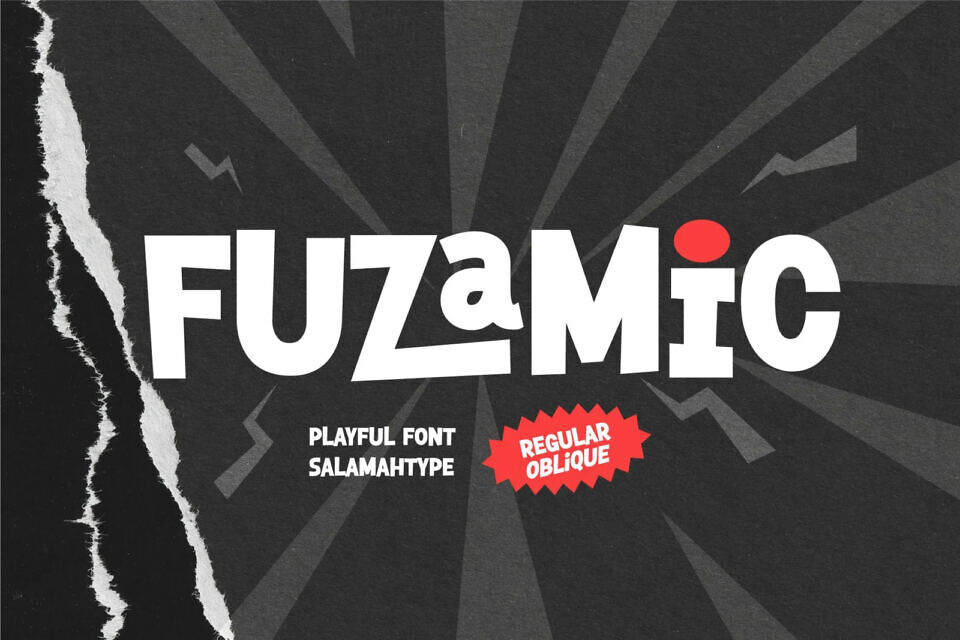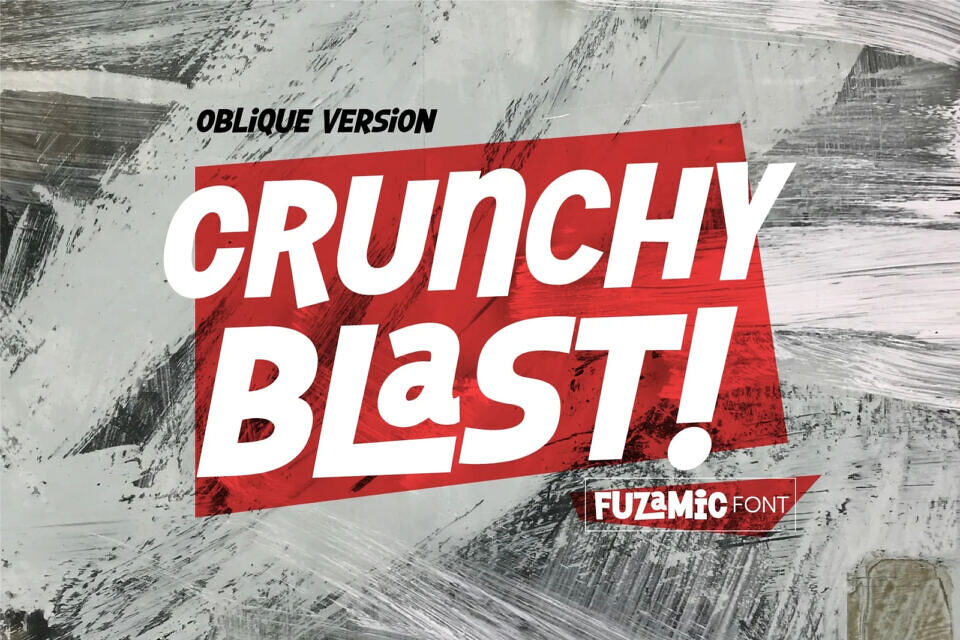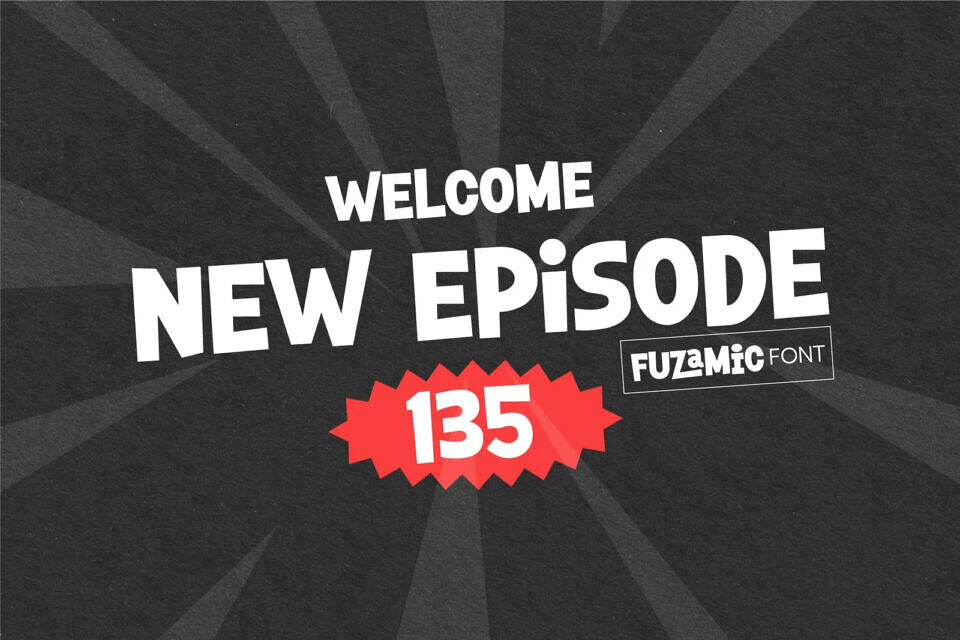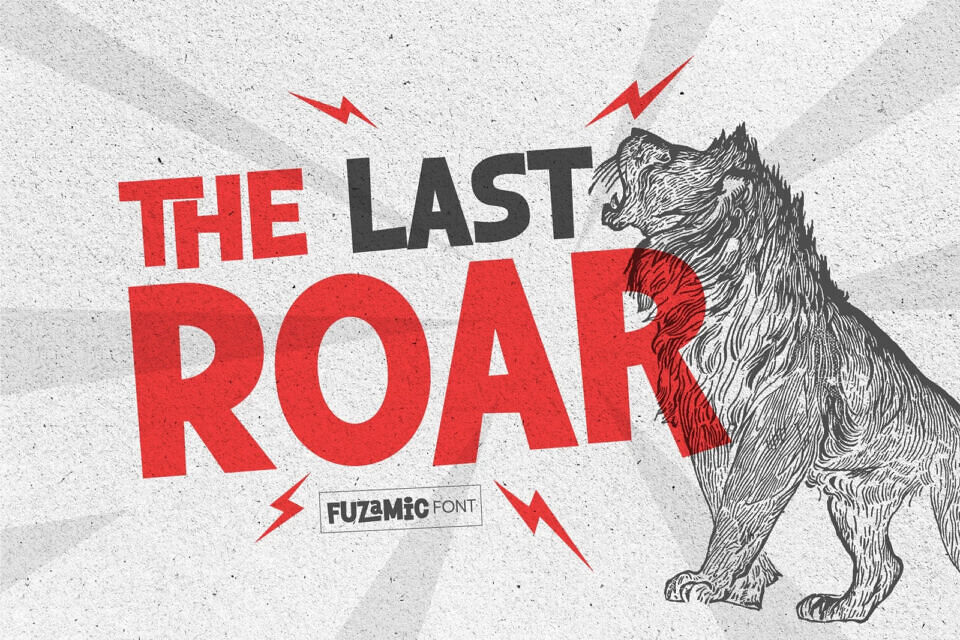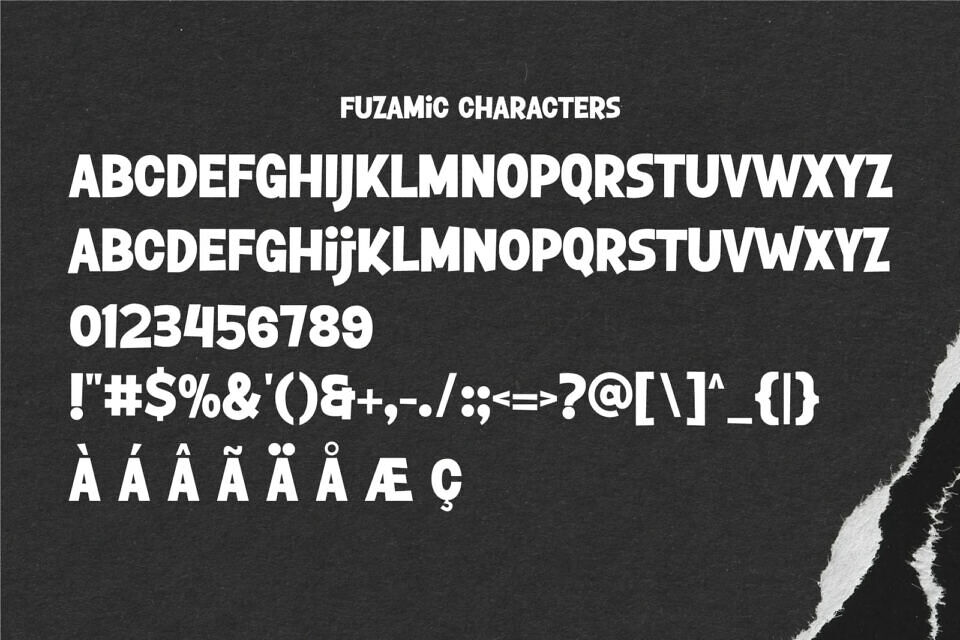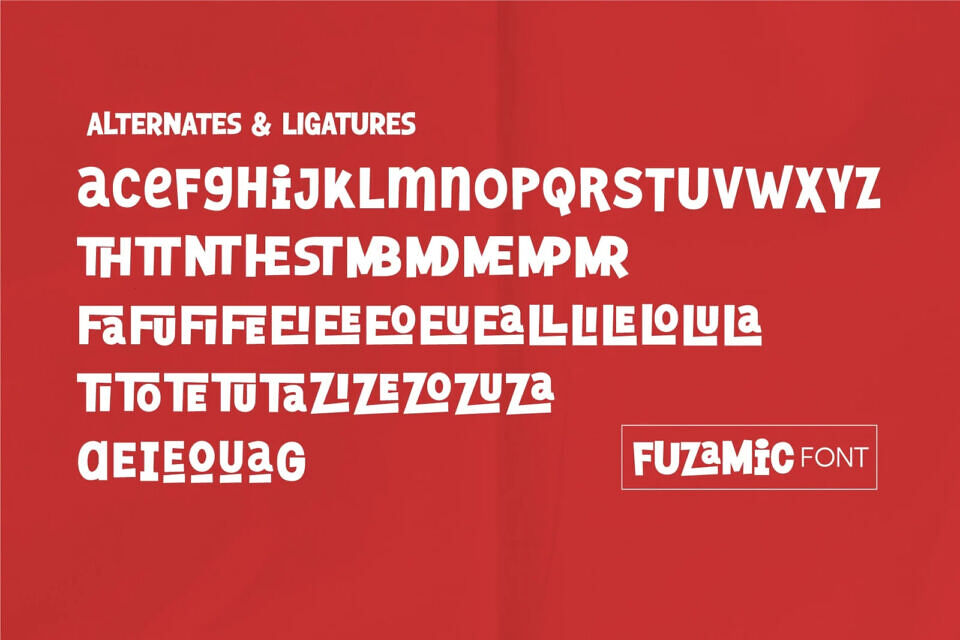
Fuzamic Font
Fuzamic is a fun and playful comic-style font designed to bring joy and personality to your creative projects. Inspired by the energetic look of comic books and hand-drawn lettering, this typeface captures a cheerful and friendly vibe that makes every word come alive!
Whether you’re designing a comic title, kids’ brand, poster, t-shirt, packaging, or YouTube thumbnail, Fuzamic adds that perfect pop of fun and energy. Its bouncy style and comic-inspired personality make it stand out in any design setting.